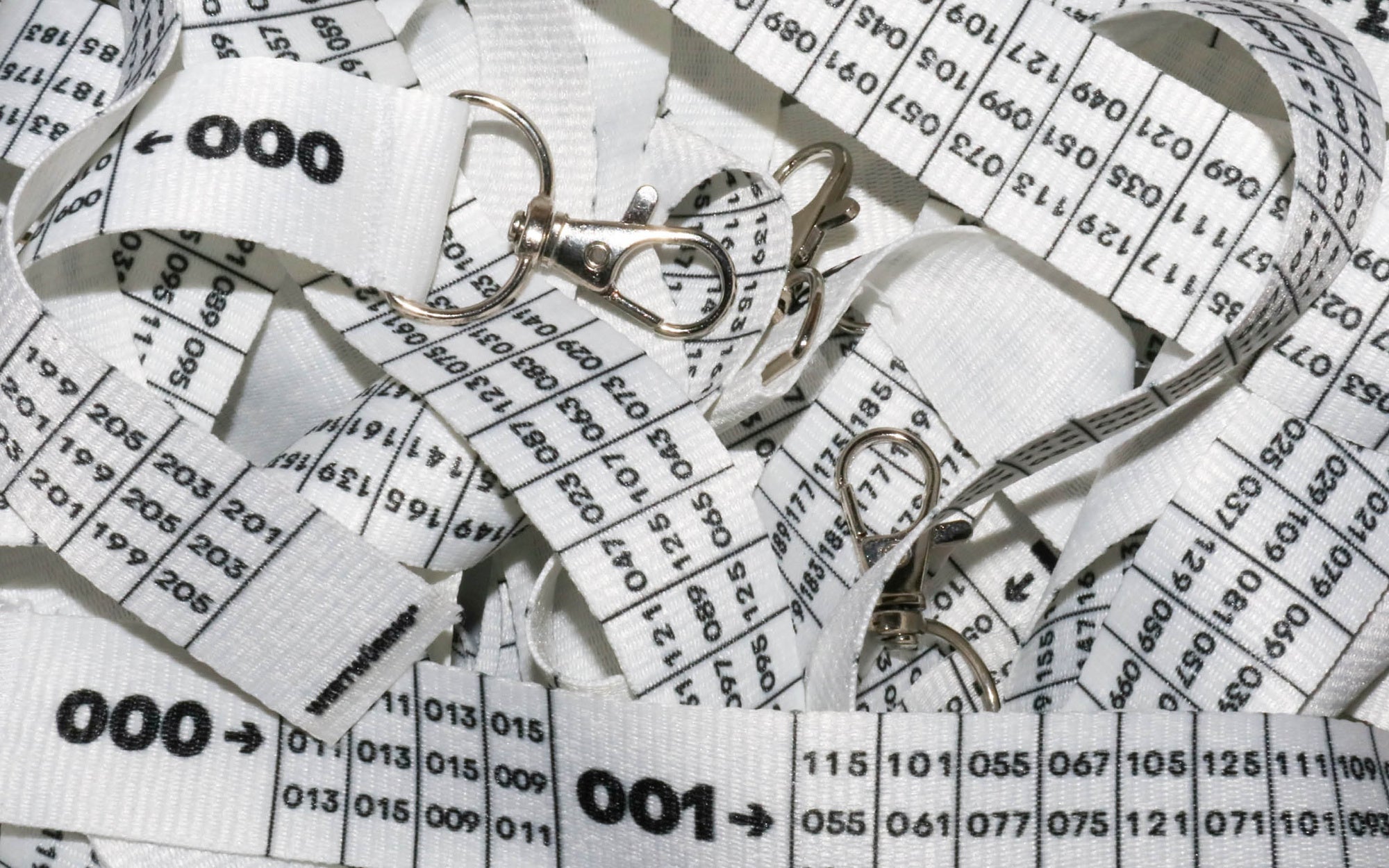
WERTWÜRDIG* is an experimental book that explores the emotional attachment to personal treasures across generations.
Through its interactive narrative structure, the book itself becomes an object whose value only becomes apparent within its context. Information and emotion merge, creating a space for reflection on individual and collective values. In this way, new connections are forged and unexpected relationships are revealed.
WERTWÜRDIG* explores the emotional connection to personal treasures and compares how different generations attach meaning, memories, and identity to objects. Central to the work is the theoretical exploration of the topics of material culture, emotional attachment, and generational dynamics. The context-dependency of objects in intergenerational comparison serves not only as the starting point for the investigations but also as a design basis for making cultural, biographical, and societal aspects visible and tangible.
Theoretical insights are linked to ethnographic data and translated into an experimental form. The research and design strategy aims not only to impart knowledge but also to make it accessible as an experiential stimulus for reflection. The medium itself functions as an “encrypted” object, embodying the content and actively triggering discourse. This creates a reading experience that reveals parallels to real-world objects of value, as the object only reveals its true worth through the correct context, in the form of a book-like table of contents.
The design concept is based on a tripartite page layout, in which the individual levels are physically separated yet interwoven. Split page formats allow for the simultaneous reading of different levels, creating an overlap between theoretical content and emotional contributions. Clearly structured information areas and crisp typography meet visually and emotionally engaging imagery and a vibrant color palette that serves as a generational concept. This results in a dynamic interplay between analysis and experience.